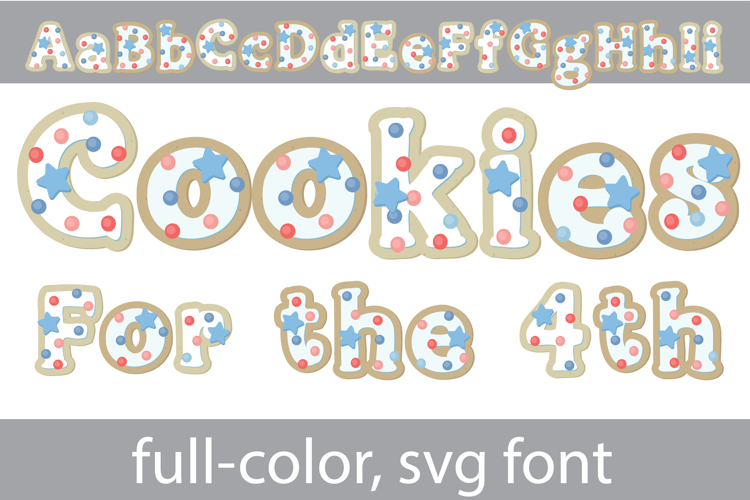
Cookies for the Fourth Too Color Font
This full-color cookie font has sprinkles in a pastel patriotic color palette. There is an alt case of additional colors of each letter that you can access through your system's character map.